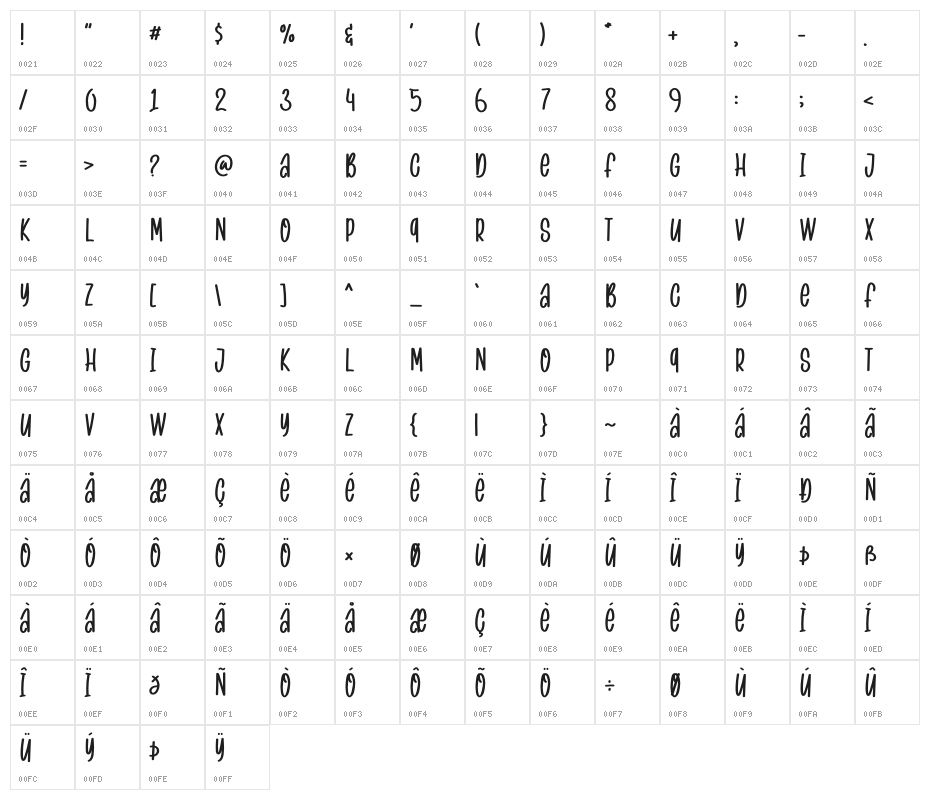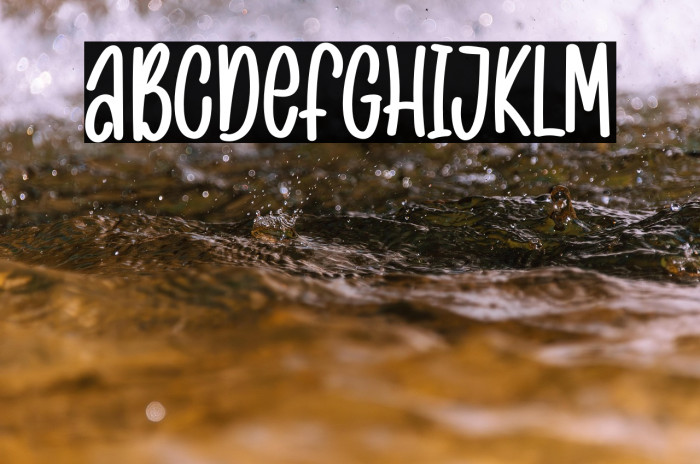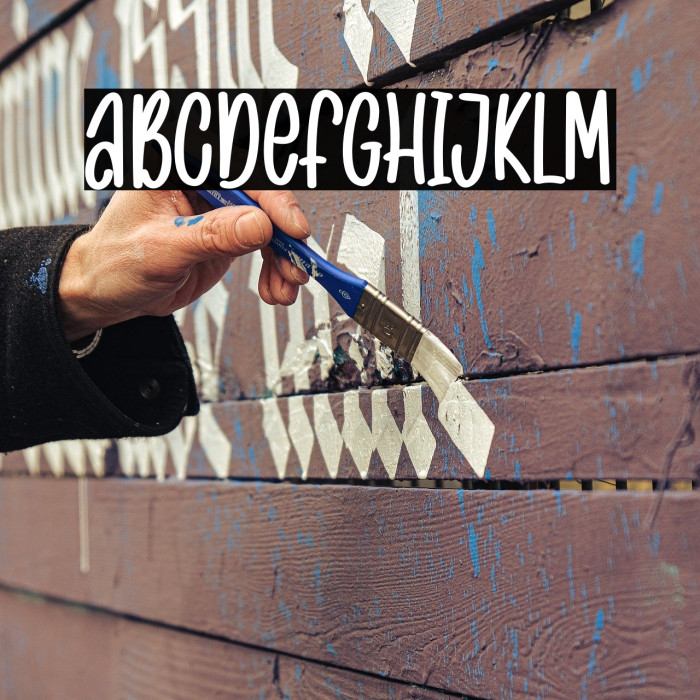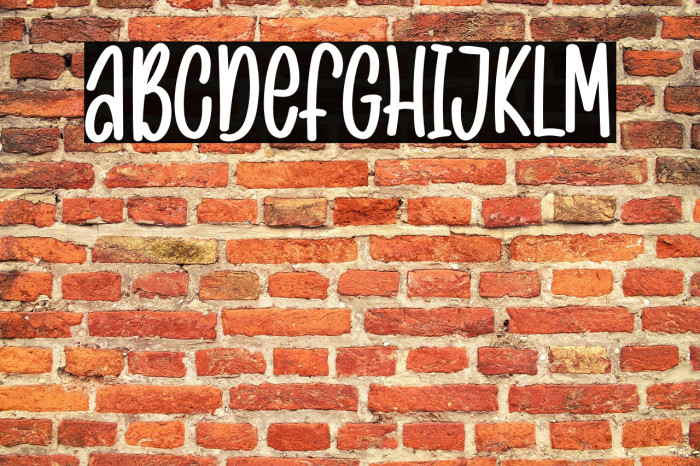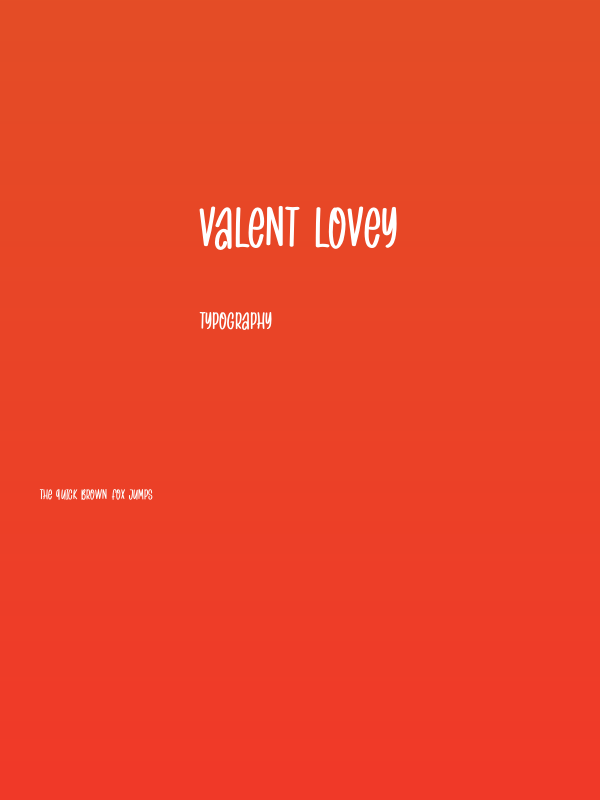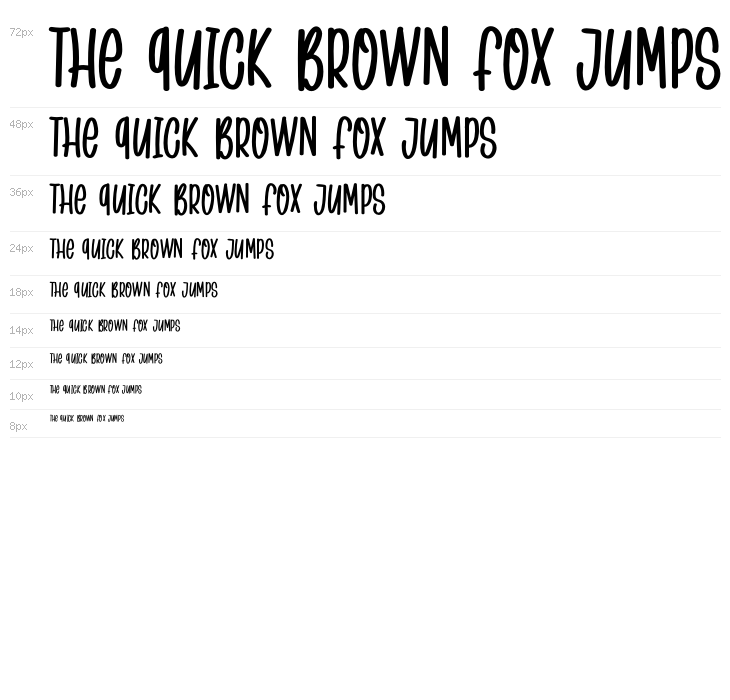
VALENT LOVEY Font
VALENT LOVEY Description
This font features a playful and whimsical style with a handwritten appearance. The characters are bold and rounded, giving off a friendly and approachable vibe. The uppercase and lowercase letters maintain a consistent flow, with slightly exaggerated curves and loops that add to its charm. The numerals and special characters are equally expressive, making them stand out in any design. This font is perfect for projects that require a touch of personality and warmth.
| Proposed Projects | Ideal for greeting cards, children's books, playful branding, and social media graphics. |